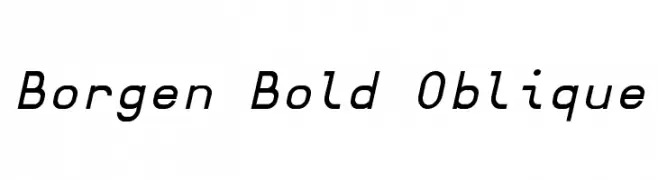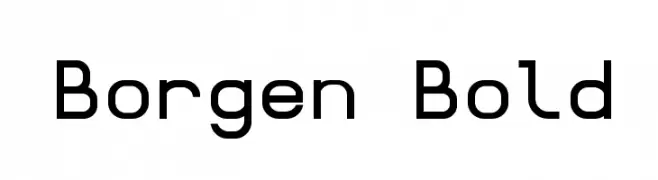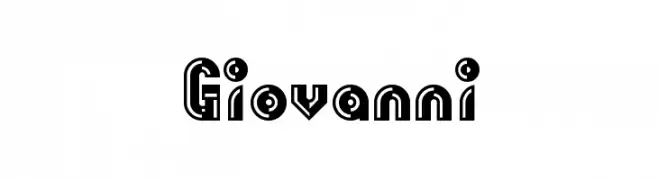
A tall, narrow serif font with a blend of classic and modern elements.
A modern, geometric font with thin lines and a clean, elegant style.
A bold, geometric stencil font with high contrast and industrial style.
A bold, oblique font with a modern and dynamic style.
A geometric sans-serif font with a bold, modern style and consistent stroke width.
A bold and oblique font with a modern, dynamic style.
A bold, geometric font with a cutout, handmade appearance.
A bold, geometric font with a modern and industrial aesthetic.
A dynamic, brush-style font with expressive strokes and artistic flair.
A bold, geometric font with decorative elements and a double-layered effect.